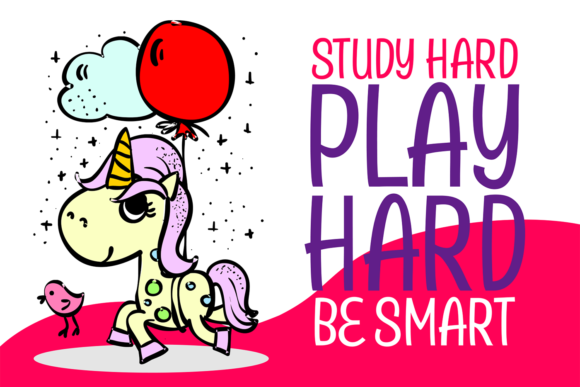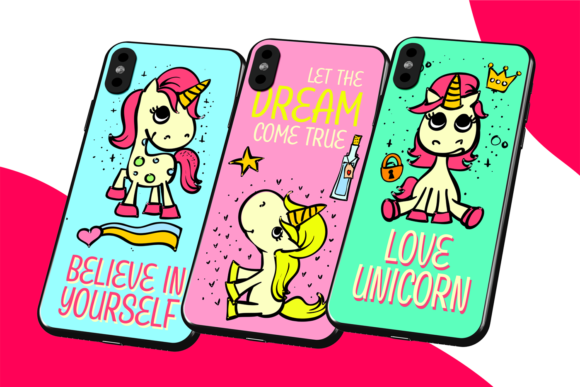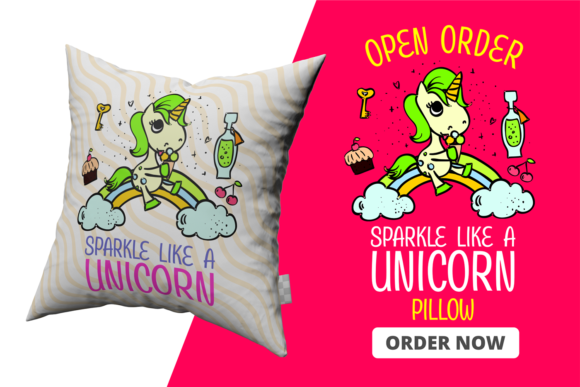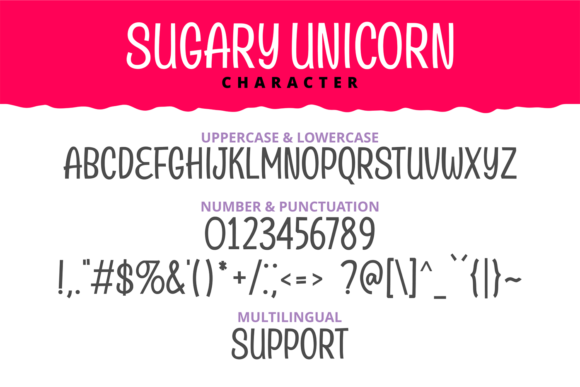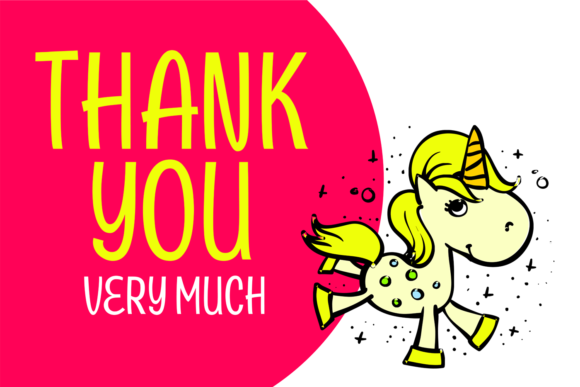
Sugary Unicorn Font
About Sugary Unicorn Font
Sugary Unicorn is a sweet, fun and quirky handwritten font. Get creative with its childlike playfulness, and use it to brighten up any kids and school project!